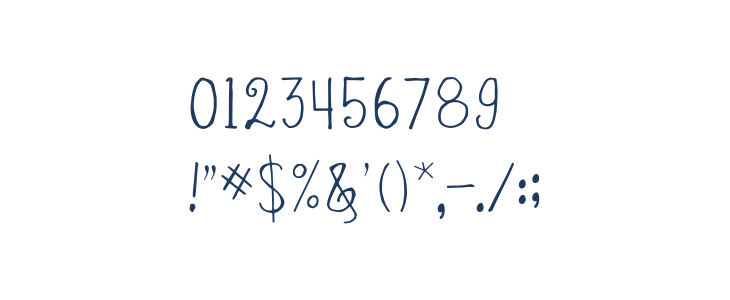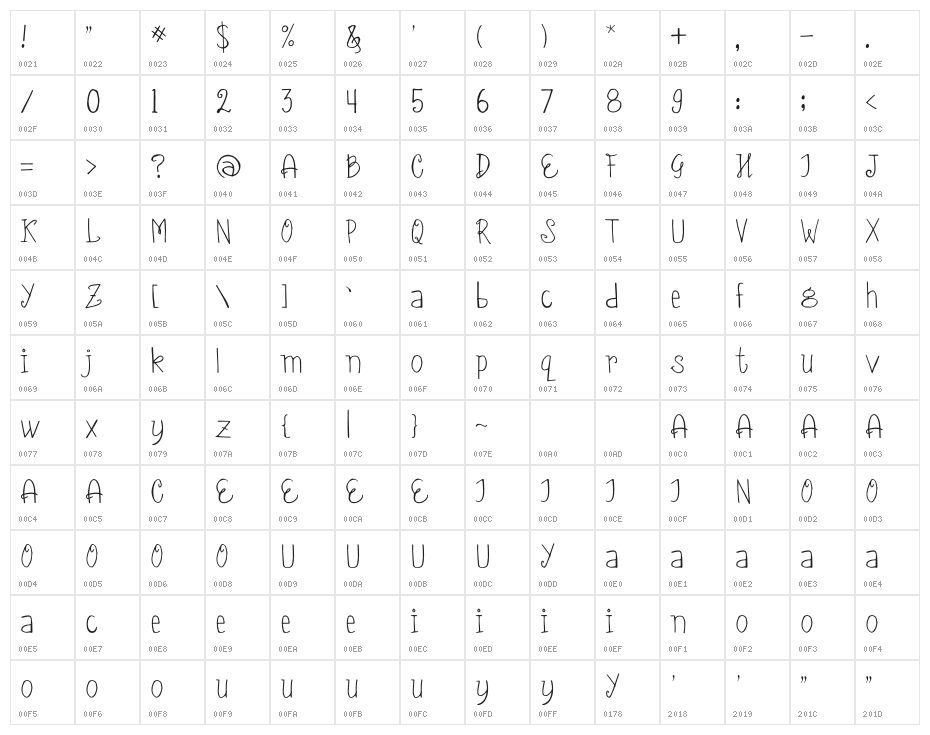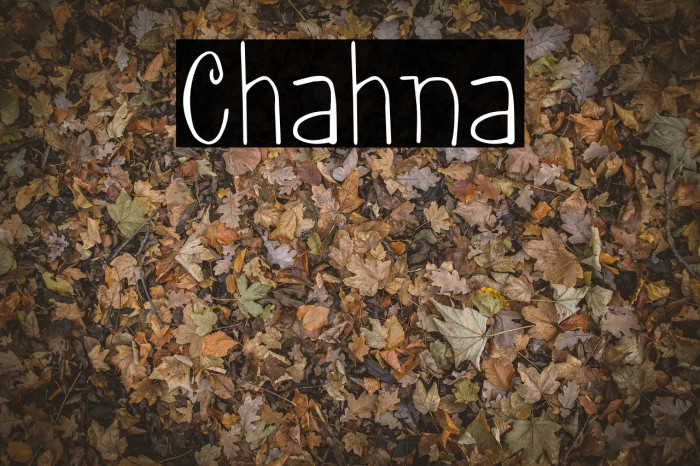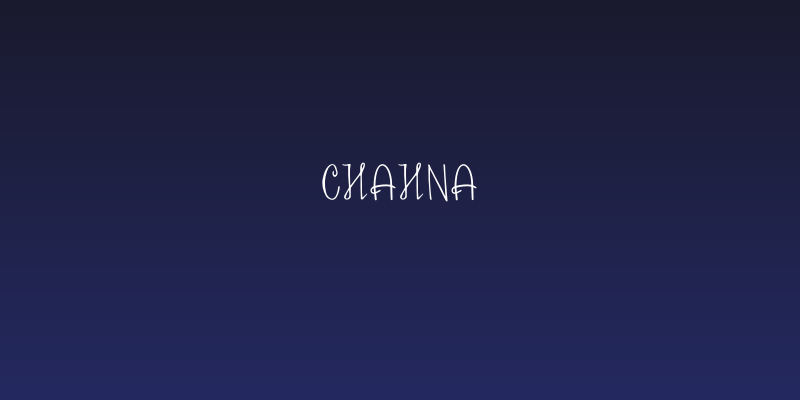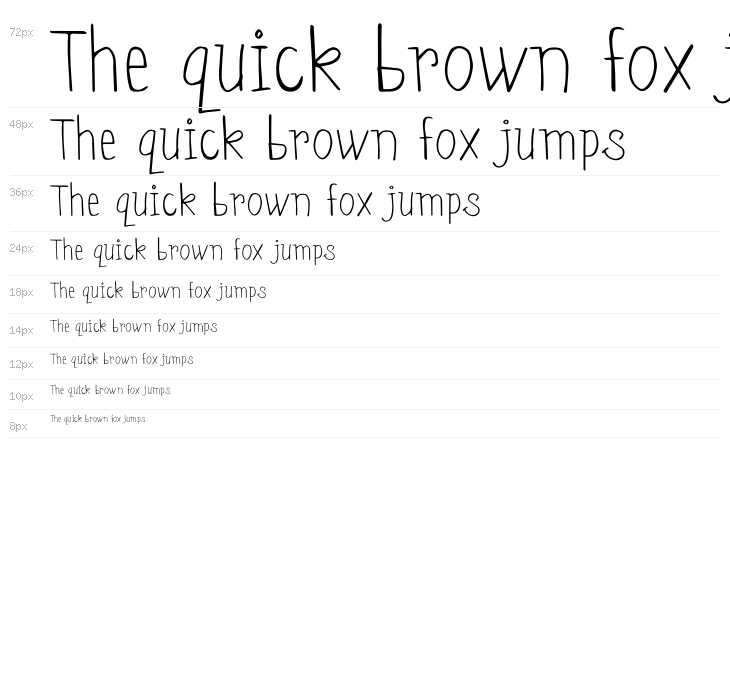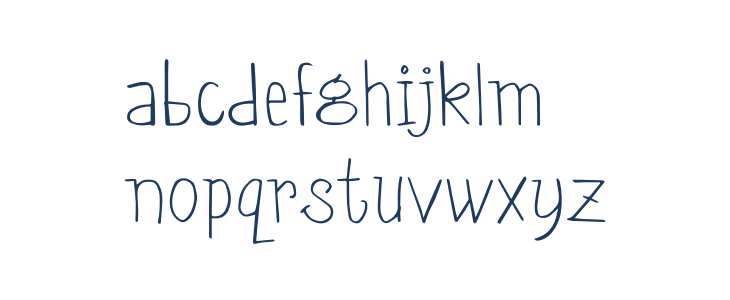
Chahna Font
Introducing Chahna, a cool and fresh handwritten font. Designed to suit the designer's needs of a font that can bring joyful feelings of children. You can use it on various projects such as invitation cards, children books, restaurant menus, etc. It come
| Caso d'uso | Logos, Headlines, Creative projects |
| Progetti proposti | Great for children's books, playful branding, greeting cards, and creative invitations. |